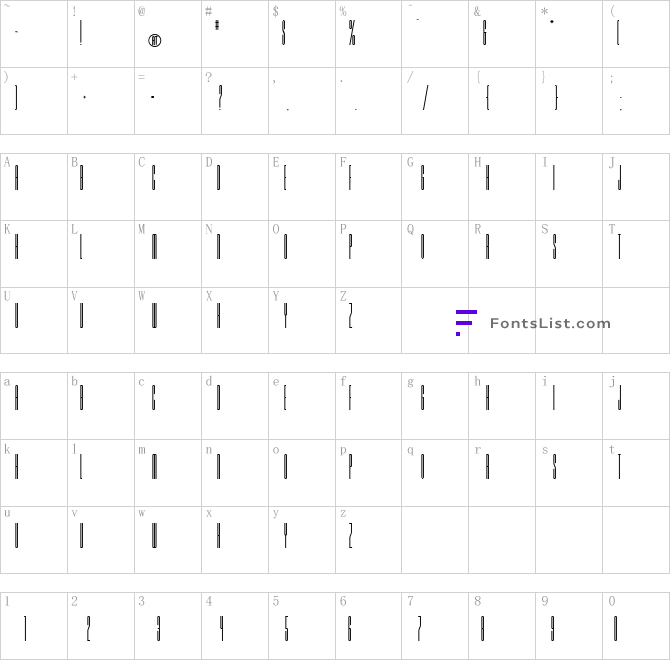
- Font Name:Barcode
- Full Name:Barcode-Three
- Copyright:Copr.1994, Brian Lucid, designer. Produced by The Font Bureau, Inc.
Barcode-Three.ttf is a very beautiful artistic font, Barcode-Three.ttf is widely used in the design and printing of various books and pictures,Barcode-Three.ttf has a strong visual impact,Barcode-Three.ttf is a commonly used font in newspapers, magazines and books, and is used in posters, e-commerce Poster design, store design, logo design, font design and other fields.Barcode-Three.